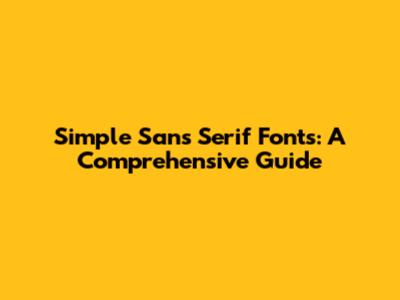
Simple Sans Serif Fonts: Guide & Examples
Hey guys! Ever wondered about those fonts that look super clean and modern? Yeah, we're talking about simple sans serif fonts. These fonts are everywhere, from the websites you visit to the books you read. They're like the unsung heroes of typography, and today, we're diving deep into what makes them so special. So, buckle up, grab your favorite beverage, and let's get font-astic!
What are Simple Sans Serif Fonts?
Okay, let’s break it down. The term "sans serif" comes from French, meaning "without serifs." Serifs are those little decorative strokes at the end of letters, you know, like the feet on a Times New Roman 'T'. Sans serif fonts, on the other hand, ditch the feet for a cleaner, more straightforward look. Think of them as the minimalist cousins of serif fonts.
Simple sans serif fonts are characterized by their clean lines, uniform strokes, and lack of embellishments. This makes them incredibly versatile and easy to read, especially in digital formats. You'll often find them used for headlines, body text, logos, and user interfaces. Their simplicity lends a contemporary and approachable vibe, which is why they’re so popular in modern design.
The beauty of simple sans serif fonts lies in their legibility and clarity. They maintain a consistent stroke width throughout each character, avoiding the thick-to-thin transitions that are common in serif fonts. This uniformity contributes to a crisp and uncluttered appearance, making them ideal for both print and digital applications. In digital contexts, such as websites and mobile apps, the clean lines of sans serif fonts render exceptionally well on screens of varying resolutions, ensuring that text remains sharp and readable. Moreover, their straightforward design allows for greater flexibility in layout and scaling, making them a staple in responsive design.
Furthermore, the aesthetic versatility of simple sans serif fonts is noteworthy. Their minimalist nature allows them to seamlessly integrate into a wide range of design styles, from corporate and professional to casual and creative. This adaptability has made them a favorite among designers across various fields, including branding, advertising, and publishing. For instance, in branding, a sans serif font can convey a sense of modernity and trustworthiness, making it a suitable choice for companies looking to project a contemporary image. In advertising, their clean appearance ensures that the message remains the focal point without being overshadowed by overly decorative typography. In publishing, they are often used for headings and subheadings to provide a clear visual hierarchy and enhance readability.
The historical context of sans serif fonts also adds to their intrigue. While serif fonts have a longer history, dating back to the inscriptions on Roman monuments, sans serif fonts gained prominence in the early 20th century with the rise of the modernist movement. Designers associated with movements like Bauhaus and Swiss Style championed sans serif fonts for their functional and geometric qualities. This association with modernism has cemented their reputation as a symbol of contemporary design. Fonts like Helvetica and Futura, which emerged during this period, remain iconic examples of the sans serif genre and continue to be widely used today. Their enduring popularity underscores the timeless appeal and versatility of simple sans serif fonts.
Why Use Simple Sans Serif Fonts?
So, why should you even bother with simple sans serif fonts? Well, let me tell you, there are tons of reasons!
- Readability: First off, they're super easy to read, especially on screens. The clean lines mean your eyes don't have to work as hard to decipher the letters. This is crucial for websites, apps, and anything digital where you want to ensure a smooth reading experience.
- Modern Look: Simple sans serif fonts have a contemporary vibe that can make your designs look fresh and up-to-date. They pair well with modern layouts and designs, giving a sleek and polished feel.
- Versatility: These fonts are like the chameleons of the font world. They can fit into almost any project, from serious business reports to fun, creative posters. Their simplicity means they won’t clash with other design elements.
- Scalability: Sans serif fonts scale beautifully, whether you're viewing them on a tiny phone screen or a massive billboard. Their clean design ensures they remain legible at any size.
- Accessibility: For people with visual impairments, sans serif fonts can be easier to read. Their straightforward letterforms reduce visual clutter and improve clarity.
Choosing the right font is a crucial aspect of any design project, and the benefits of using simple sans serif fonts extend across various applications. Their inherent readability makes them an excellent choice for body text in both digital and print media. The absence of serifs allows the letters to maintain a consistent appearance, even at smaller sizes, which is particularly important for ensuring a comfortable reading experience. This is why you’ll often find sans serif fonts used in books, articles, and websites where large amounts of text need to be easily digestible.
Moreover, the modern aesthetic of sans serif fonts makes them ideal for conveying a sense of innovation and forward-thinking. This is particularly valuable in branding and advertising, where the goal is to capture the audience's attention and create a memorable impression. A simple sans serif font can project an image of sophistication and efficiency, aligning well with the values of many contemporary businesses. Whether it's a tech startup, a financial institution, or a creative agency, sans serif fonts can help establish a strong and modern brand identity.
In the realm of digital design, the scalability of sans serif fonts is a significant advantage. As websites and apps need to adapt to various screen sizes and resolutions, fonts must remain clear and legible across different devices. Sans serif fonts excel in this area because their clean lines and uniform strokes prevent distortion and blurring, ensuring that the text remains sharp and readable. This makes them a reliable choice for responsive design, where the layout adjusts dynamically to fit the user's screen.
Furthermore, the accessibility benefits of sans serif fonts should not be overlooked. For individuals with visual impairments, the simplicity of sans serif fonts can significantly improve readability. The absence of decorative serifs reduces visual noise, making it easier to distinguish between letters. This is why many organizations and websites that prioritize accessibility opt for sans serif fonts to ensure that their content is inclusive and user-friendly. By choosing a sans serif font, designers can create a more accessible and equitable experience for all users.
Popular Simple Sans Serif Fonts
Alright, let’s get into some specific examples. You've probably seen these fonts around, even if you didn't know their names. Here are a few popular simple sans serif fonts that are definitely worth checking out:
- Helvetica: The OG of sans serif fonts. It's clean, neutral, and incredibly versatile. You'll find Helvetica used everywhere, from corporate logos to street signs.
- Arial: Often seen as Helvetica’s cousin, Arial is another widely used sans serif font. It's a standard font on many computers, making it easily accessible.
- Futura: With its geometric shapes, Futura has a distinct and modern feel. It’s perfect for headlines and designs that need a touch of sophistication.
- Open Sans: A popular choice for web design, Open Sans is highly legible and has a friendly, approachable vibe. It's great for body text and user interfaces.
- Roboto: Designed by Google, Roboto is a modern sans serif font that’s used extensively in Android and other Google products. It’s clean, functional, and highly readable.
- Lato: Lato is a sleek and modern font that maintains legibility across a wide range of sizes. It blends geometric precision with classic elegance, making it suitable for web and print use.
- Montserrat: Inspired by vintage signage, Montserrat brings a touch of nostalgia to modern designs. Its clean lines and strong presence make it ideal for headlines and branding.
- Quicksand: With its rounded terminals and friendly disposition, Quicksand adds a playful yet legible touch to any project. It is particularly effective in branding and web design.
- Avenir: Avenir is a geometric sans serif font designed by Adrian Frutiger, the creator of Univers. It's known for its clean lines and harmonious proportions, making it highly versatile.
- Myriad Pro: Created by Adobe, Myriad Pro is a contemporary sans serif with subtly rounded edges, offering a balance between formality and approachability. It's often used in branding and marketing materials.
The enduring popularity of simple sans serif fonts like Helvetica is a testament to their timeless design. Created in 1957, Helvetica has become synonymous with neutrality and clarity. Its widespread use in corporate identities, signage systems, and editorial design highlights its versatility and readability. Similarly, Arial, while often compared to Helvetica, is a practical alternative that is widely available across different platforms. Its clean lines and straightforward design make it a reliable choice for a variety of applications.
Futura, with its geometric letterforms, stands out for its modern and distinctive appearance. Inspired by the Bauhaus movement, Futura conveys a sense of precision and sophistication. Its sharp, clean shapes make it ideal for headlines, logos, and designs that aim to project a contemporary image. Open Sans, on the other hand, is designed specifically for on-screen readability. Its open letterforms and neutral appearance make it a popular choice for websites, apps, and user interfaces. The font’s clear and legible design ensures a comfortable reading experience, even at smaller sizes.
Roboto, created by Google, is another example of a sans serif font optimized for digital use. It’s the default font for Android and many other Google products, showcasing its versatility and readability across different devices and platforms. Roboto’s clean and functional design makes it well-suited for both body text and headlines. Lato, with its semi-rounded details, offers a warm and inviting alternative to more rigid sans serif fonts. Its balanced proportions and clear letterforms make it a versatile choice for both print and web design. The font’s subtle curves add a touch of elegance, making it suitable for a wide range of applications.
Montserrat, inspired by the urban typography of Buenos Aires, combines a vintage aesthetic with modern sensibilities. Its strong presence and clean lines make it an excellent choice for headlines and branding. Quicksand, characterized by its rounded terminals, brings a playful and friendly vibe to designs. Its approachable nature makes it particularly effective in branding and web design. Avenir, designed by Adrian Frutiger, is celebrated for its harmonious proportions and clean lines. Its versatile design makes it suitable for a variety of applications, from corporate materials to editorial layouts. Myriad Pro, developed by Adobe, is a contemporary sans serif font with subtly rounded edges, offering a balance between formality and approachability. Its elegant design makes it a popular choice for branding and marketing materials.
How to Choose the Right Simple Sans Serif Font
Okay, so you’re sold on sans serif fonts, but how do you pick the right one? Don't worry, I've got your back! Here are a few tips to help you choose the perfect font for your project:
- Consider the Project: What are you working on? A sleek, corporate website? A playful children's book? The tone of your project should guide your font choice. For professional settings, fonts like Helvetica or Arial might be ideal due to their neutrality and legibility. For more creative projects, consider fonts like Quicksand or Montserrat, which offer a more distinctive and engaging look.
- Think About Legibility: Is the font easy to read? This is super important, especially for body text. Open Sans and Roboto are excellent choices for ensuring readability across various screen sizes. If the font looks cluttered or difficult to decipher, it’s probably not the right fit.
- Match the Style: Does the font fit the overall aesthetic of your design? A geometric font like Futura might be perfect for a modern, minimalist design, while a rounded font like Lato could add a softer touch to your project. Consider how the font interacts with other design elements, such as colors and images, to create a cohesive look.
- Pairing Fonts: If you’re using more than one font, make sure they complement each other. A classic pairing is a sans serif font for headlines and a serif font for body text. However, you can also pair different sans serif fonts as long as they have enough contrast to create visual interest. For example, you might pair a bolder font like Montserrat with a lighter font like Open Sans.
- Test it Out: Before you commit, try the font in your design. See how it looks at different sizes and in different contexts. Use a font testing tool or create mockups to ensure that the font works well with your design.
Selecting the right font involves a careful assessment of various factors to ensure it aligns with your project’s goals and aesthetic. Start by defining the purpose and tone of your project. Are you designing a professional brochure, a friendly website, or a creative poster? Each type of project demands a font that resonates with its specific context. A formal document might benefit from a classic sans serif font like Helvetica, while a casual website might be better suited to a more approachable option like Open Sans.
Legibility is paramount, particularly for body text. A font that is difficult to read can deter your audience and undermine your message. Look for fonts with clear letterforms, sufficient spacing, and consistent stroke widths. Open Sans and Roboto are designed with readability in mind, making them excellent choices for extended text passages. For headlines and titles, you might have more flexibility to choose a font with a distinct personality, but always ensure it remains readable at larger sizes.
The font’s style should harmonize with the overall design aesthetic. Consider the mood you want to evoke and choose a font that aligns with it. A geometric sans serif font like Futura can convey a sense of modernity and precision, while a rounded font like Quicksand can add a touch of playfulness and warmth. Pay attention to the font’s characteristics, such as its weight, width, and spacing, to ensure it complements your design elements and color palette.
Font pairing is an art that can significantly enhance the visual appeal and readability of your design. A common strategy is to pair a sans serif font with a serif font, creating a contrast that is both visually pleasing and functional. However, you can also pair different sans serif fonts effectively. The key is to choose fonts that have enough contrast to differentiate them while maintaining a cohesive look. For instance, pairing a bold sans serif font for headlines with a lighter sans serif font for body text can create a balanced and engaging visual hierarchy.
Before finalizing your font choice, always test it within your design context. Fonts can appear different on screen compared to how they look in print, so it’s crucial to evaluate them in their intended environment. Try the font at various sizes, in different colors, and with different backgrounds to ensure it maintains its legibility and aesthetic appeal. Using font testing tools and creating mockups can help you make an informed decision and avoid potential issues down the line.
Simple Sans Serif Fonts in Action
To give you some real-world examples, let's look at how simple sans serif fonts are used in different contexts:
- Logos: Many tech companies use sans serif fonts in their logos to convey a sense of innovation and simplicity. Think Google (Roboto) or Spotify (Gotham).
- Websites: Sans serif fonts are a staple for website body text because of their readability on screens. Sites like Medium and Airbnb use sans serif fonts extensively.
- Posters: For a clean and modern look, designers often use sans serif fonts in posters. They work especially well when paired with bold colors and simple graphics.
- Mobile Apps: The clean lines of sans serif fonts make them perfect for mobile interfaces, where space is limited and readability is key. Apps like Instagram and Twitter rely on sans serif fonts for a seamless user experience.
In the realm of logo design, the strategic use of simple sans serif fonts can communicate core brand values and personality. Tech companies, in particular, often opt for sans serif fonts to project an image of modernity, efficiency, and innovation. Google's use of Roboto in its logo and branding materials is a prime example of this trend. Roboto’s clean lines and geometric structure convey a sense of technological sophistication and accessibility. Similarly, Spotify's choice of Gotham, a geometric sans serif font, reflects its forward-thinking approach and commitment to user-friendly design.
Websites benefit significantly from the readability of sans serif fonts, making them an indispensable choice for online content. Platforms like Medium and Airbnb heavily rely on sans serif fonts for their body text to ensure a comfortable reading experience for users. The clear and uncluttered letterforms of sans serif fonts prevent eye strain and allow readers to focus on the content. This is especially crucial for websites that feature long articles or extensive textual information. By prioritizing legibility, these platforms enhance user engagement and satisfaction.
In poster design, simple sans serif fonts offer a versatile solution for creating visually striking and easily readable compositions. When paired with bold colors and simple graphics, sans serif fonts can produce a clean, contemporary aesthetic that captures attention. Designers often use sans serif fonts for headlines and key messages to ensure they stand out and convey information effectively. The font's simplicity complements other design elements, allowing for a harmonious and impactful visual presentation.
Mobile applications also leverage the clarity and space-efficiency of sans serif fonts to create seamless user interfaces. With limited screen real estate, readability becomes paramount, and sans serif fonts excel in this area. Apps like Instagram and Twitter employ sans serif fonts extensively to ensure that text remains legible and user interactions are intuitive. The clean lines and straightforward design of sans serif fonts help to declutter the interface, making it easier for users to navigate and engage with the app’s features.
The versatility of simple sans serif fonts extends to various other applications as well. They are commonly used in print materials such as brochures, business cards, and reports, where a professional and easily readable typeface is essential. In the field of environmental graphics, sans serif fonts are often chosen for signage and wayfinding systems, providing clear and concise information to the public. Their adaptability and timeless appeal make sans serif fonts a staple in the design industry, ensuring their continued relevance across diverse media and contexts.
So there you have it, guys! Simple sans serif fonts are the workhorses of the design world. They’re versatile, readable, and can give your projects a modern edge. Whether you're designing a logo, a website, or a poster, understanding sans serif fonts is essential for creating effective and visually appealing designs. Go forth and font it up!
In summary, simple sans serif fonts are more than just a design choice; they are a fundamental element of visual communication. Their clean, unadorned letterforms offer a level of clarity and versatility that makes them indispensable across various applications. From ensuring legibility in digital interfaces to conveying a sense of modernity in branding, sans serif fonts play a critical role in shaping how we perceive and interact with the world around us.
Their historical significance, particularly within the modernist movement, has cemented their reputation as a symbol of contemporary design. Fonts like Helvetica and Futura have become iconic examples of the genre, demonstrating the enduring appeal of simplicity and functionality. The ongoing popularity of sans serif fonts underscores their timeless quality and their ability to adapt to evolving design trends.
Moreover, the accessibility benefits of sans serif fonts highlight their importance in creating inclusive and user-friendly experiences. Their clear and consistent letterforms make them easier to read for individuals with visual impairments, ensuring that content is accessible to a wider audience. This commitment to accessibility reflects a broader understanding of design as a means of fostering inclusivity and equity.
Whether you're a seasoned designer or just starting out, mastering the use of simple sans serif fonts is crucial for achieving effective and visually compelling designs. By understanding their characteristics, applications, and the principles behind their selection, you can leverage their power to enhance your projects and communicate your message with clarity and impact. So, embrace the simplicity and versatility of sans serif fonts, and let them elevate your design endeavors.